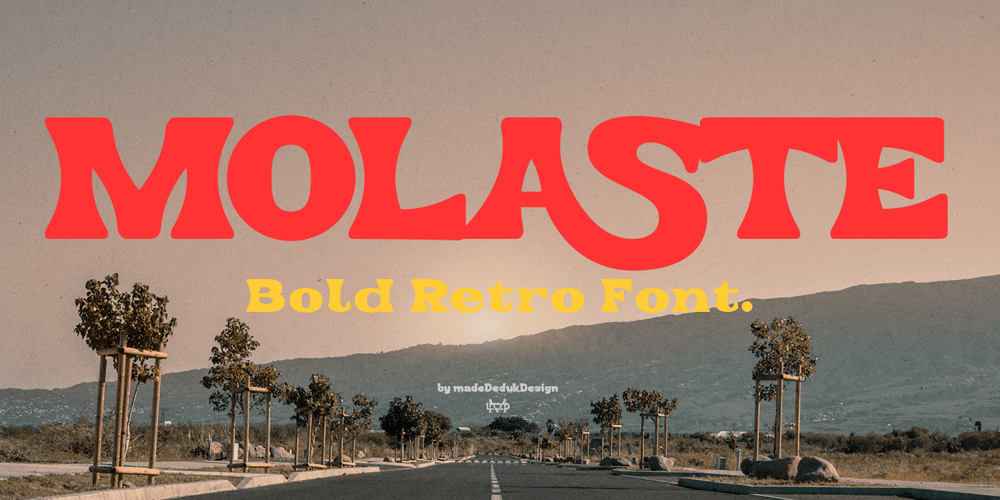
Molaste Font Family was designed by madededuk and published by madeDeduk. Molaste contains 1 styles and family package options. Molaste is a retro font come with 80’s retro style serif. You can explore and combine creating rhythm for comfortable reading. Vintage and refined use this font for any branding, product packaging, invitation, quotes, headline, label, poster, logo etc.Feature Uppercase & Lowercase Number & Symbol International Glyphs Multilingual support Alternative Ligature Feel free to drop us a message any time and follow my shop for upcoming updatesHope you enjoy it.